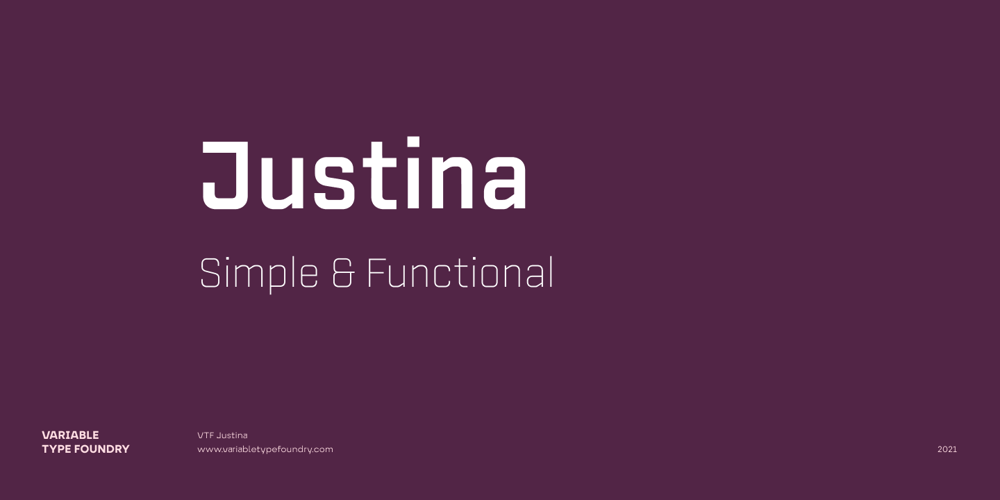
VTF Justina Font Family was designed by Lole Román and published by Variable Type Foundry. VTF Justina contains 36 styles and family package options. VTF Justina is a different typeface with a sans serif style that is inspired by geometric typographies to seek functionality and simple quality in any type of project.This very personal character of its forms together with the variety of eighteen weights with their respective italics (Thin, Extra Light, Ultra Light, Light, Regular, Semi Bold, Bold, Ultra Bold, and Black) it has makes it perfect to combine with the VTF Rozanova in digital projects (for example, web or applications) or printed (for example, corporate identity or packaging). Becoming a very interesting option for both large and small bodies without losing legibility in any weight.Justina has Opentype functions (Case sensitive forms, ordinals, scientific inferiors, denominators, superscripts, subscripts, numerators, fractions) designed exclusively for its design. Supports the following languages: Afrikaans, Albanian, Catalan, Croatian, Czech, Danish, Dutch, English, Estonian, Finnish, French, German, Hungarian, Icelandic, Italian, Latvian, Lithuanian, Maltese, Norwegian, Polish, Portuguese, Romanian, Slovak, Slovenian, Spanish, Swedish, Turkish and Zulu.